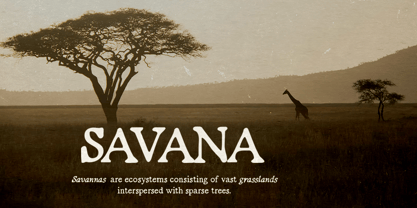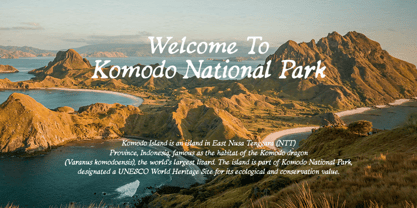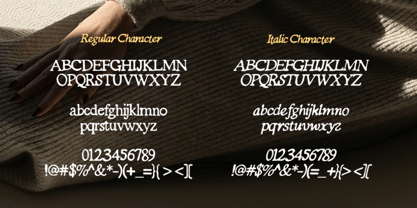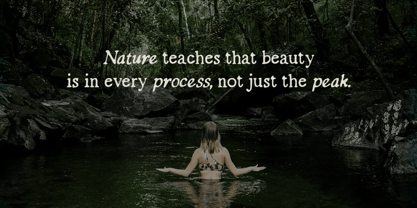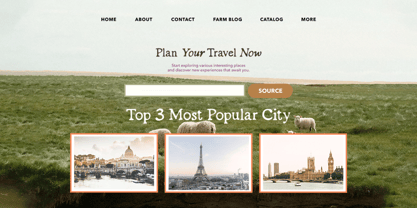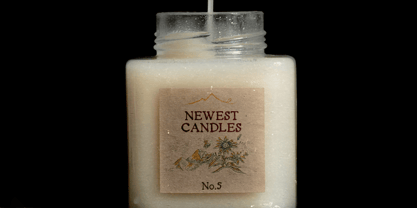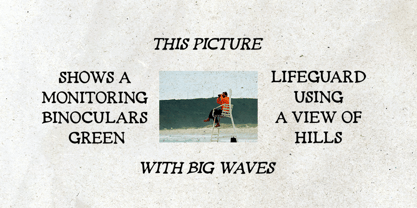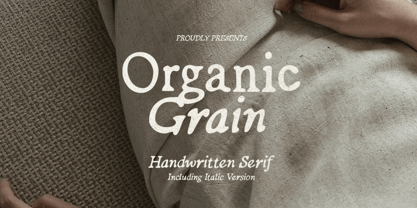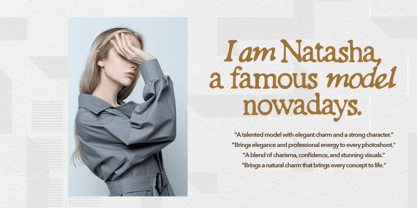
Organic Grain
by Bale Type
The Organic Grain Font Family was designed by Albin Pawaz and published by Bale Type. Organic Grain contains 2 styles and family package options. More about this family
Organic Grain is a hand-lettered serif font family designed to bring a warm, organic touch to your creative projects. It includes both regular and italic styles, giving you flexible options to craft visually appealing and naturally styled designs. Inspired by handcrafted lettering, this typeface features a subtle blurred texture that adds character and a soft, artisanal feel to every word. Organic Grain works beautifully for a wide range of purposes, including logotypes, branding materials, inspirational quotes, packaging, social media graphics, and elegant wedding invitations. Its distinctive yet readable style helps create designs that feel authentic and thoughtfully made. In addition, Organic Grain supports multiple languages, making it suitable for global projects while maintaining its unique handcrafted aesthetic.
Designers: Albin Pawaz
Foundry: Bale Type